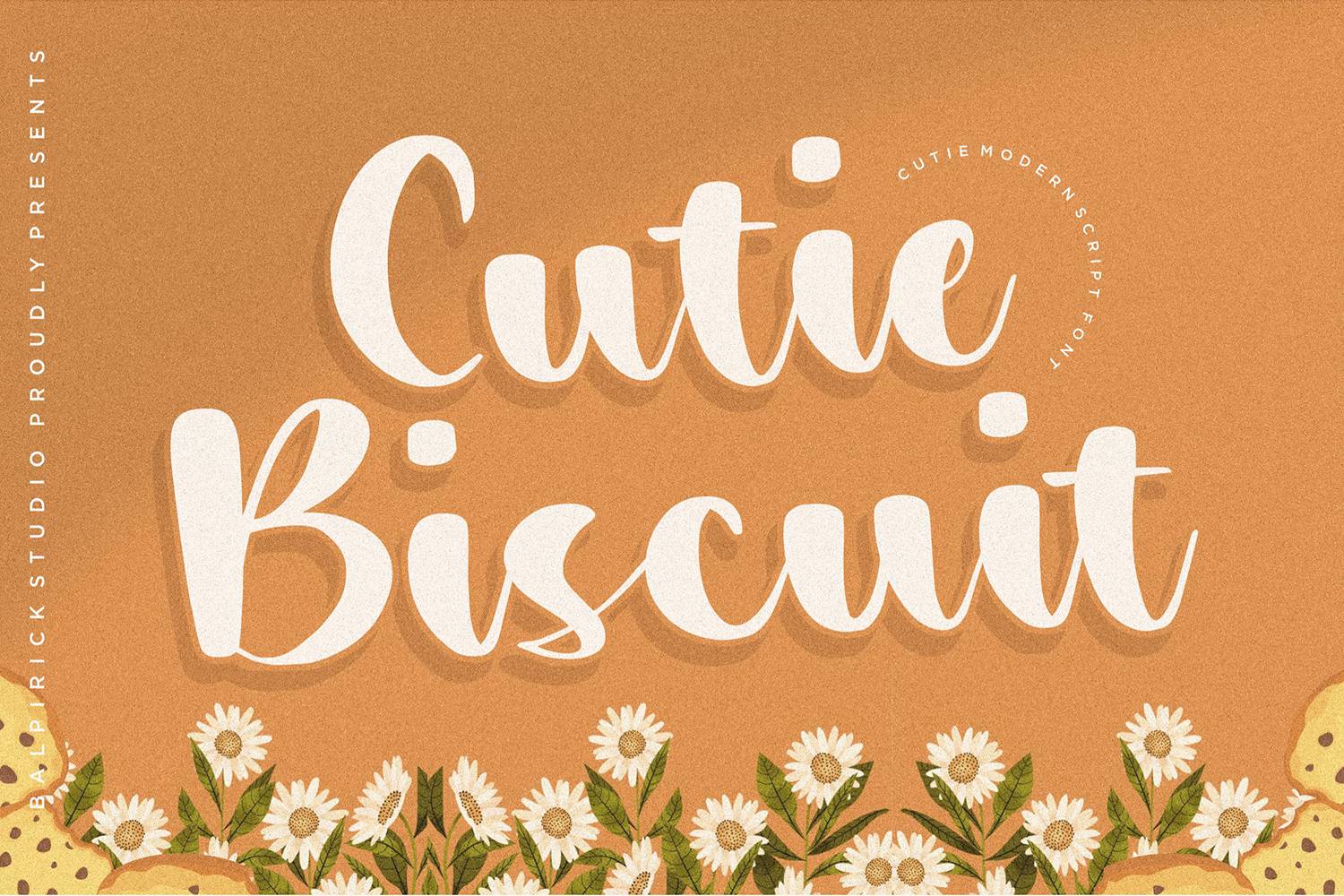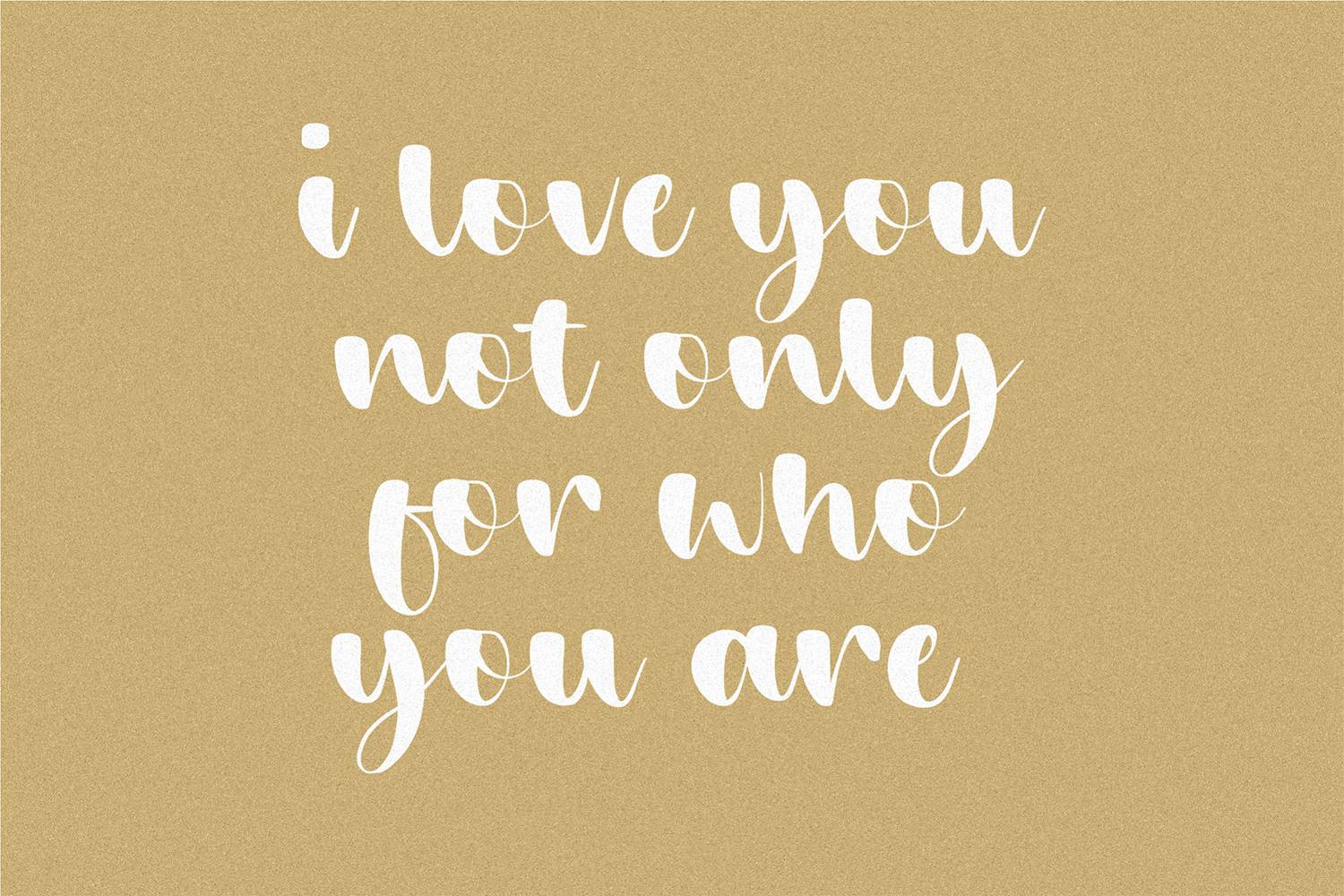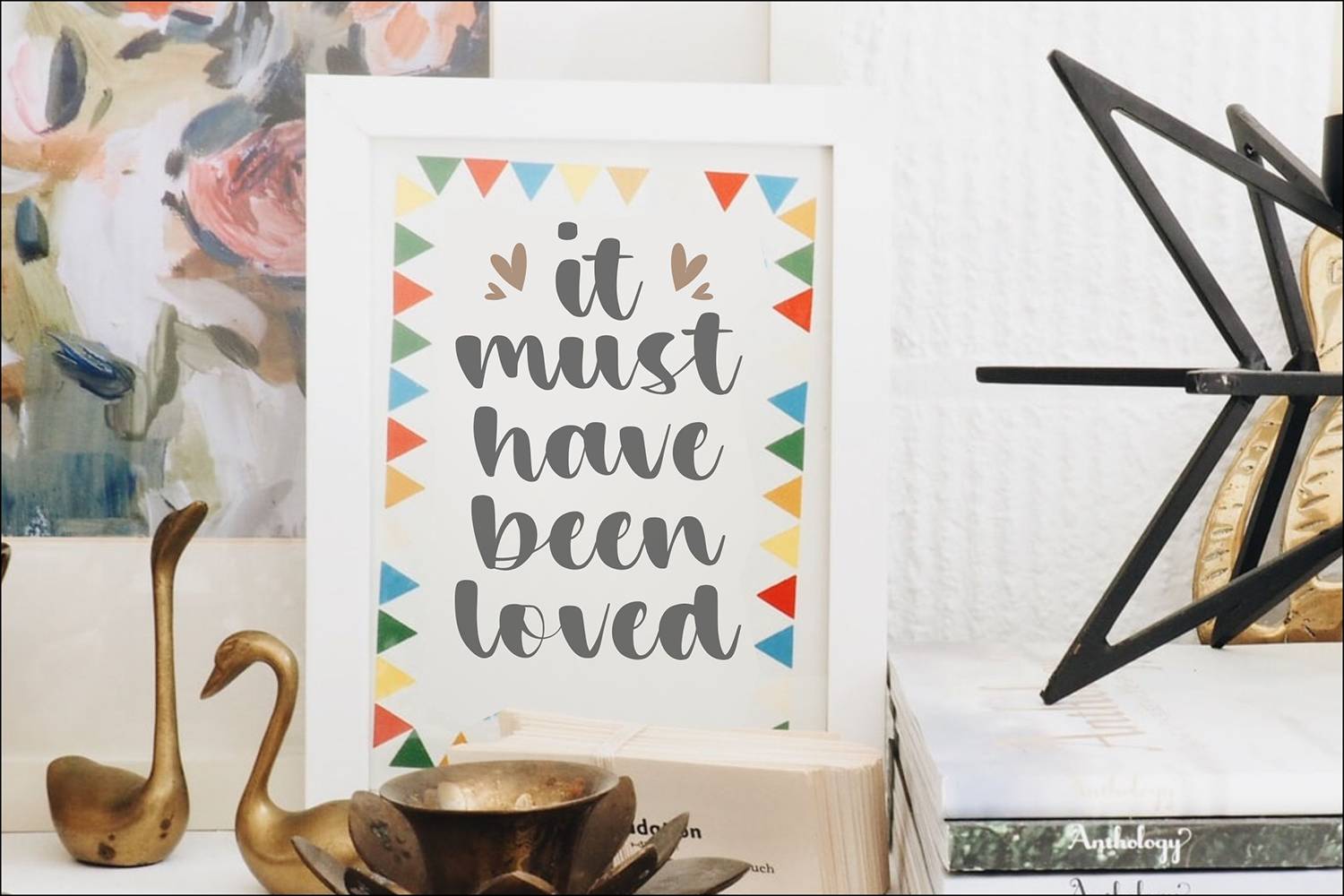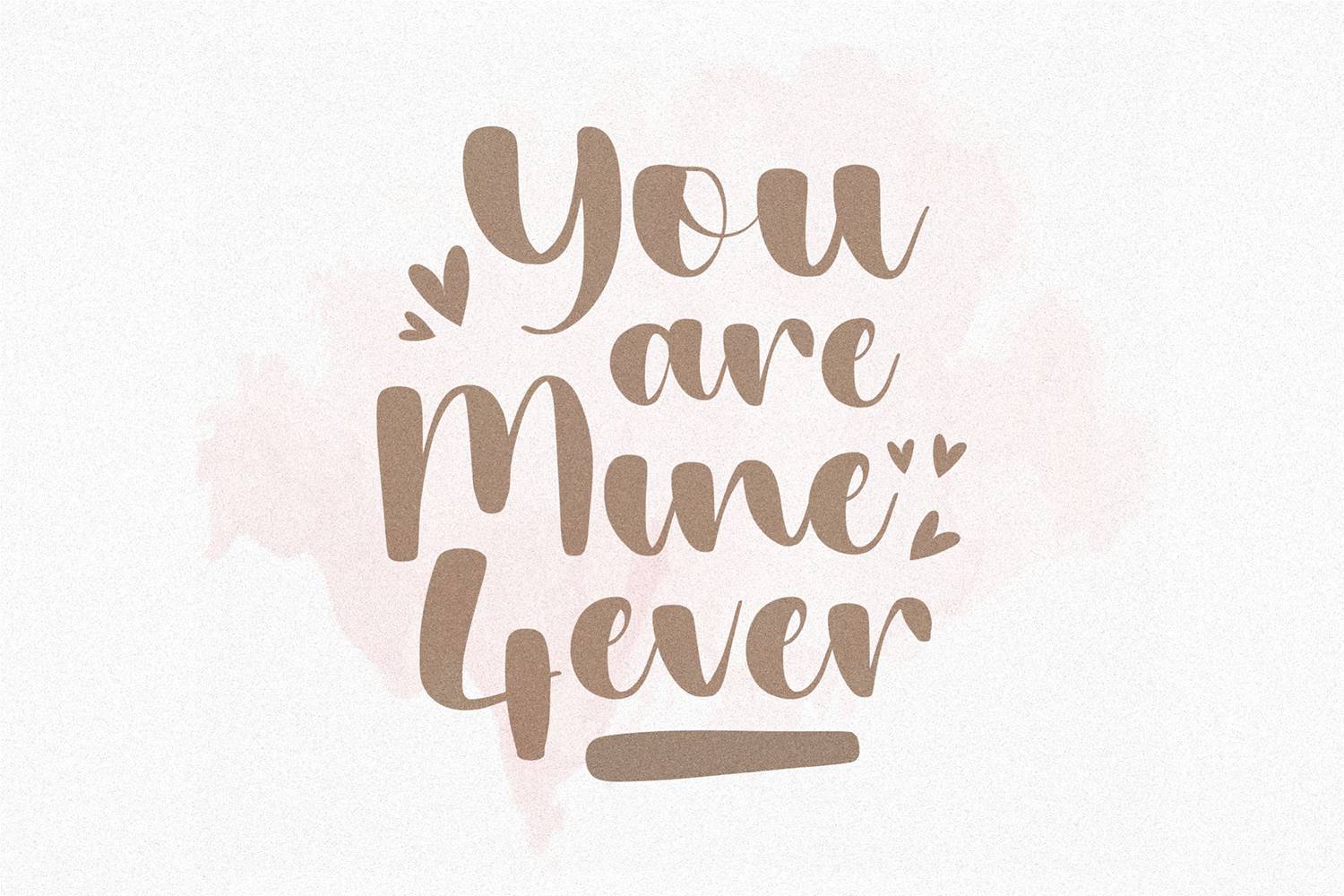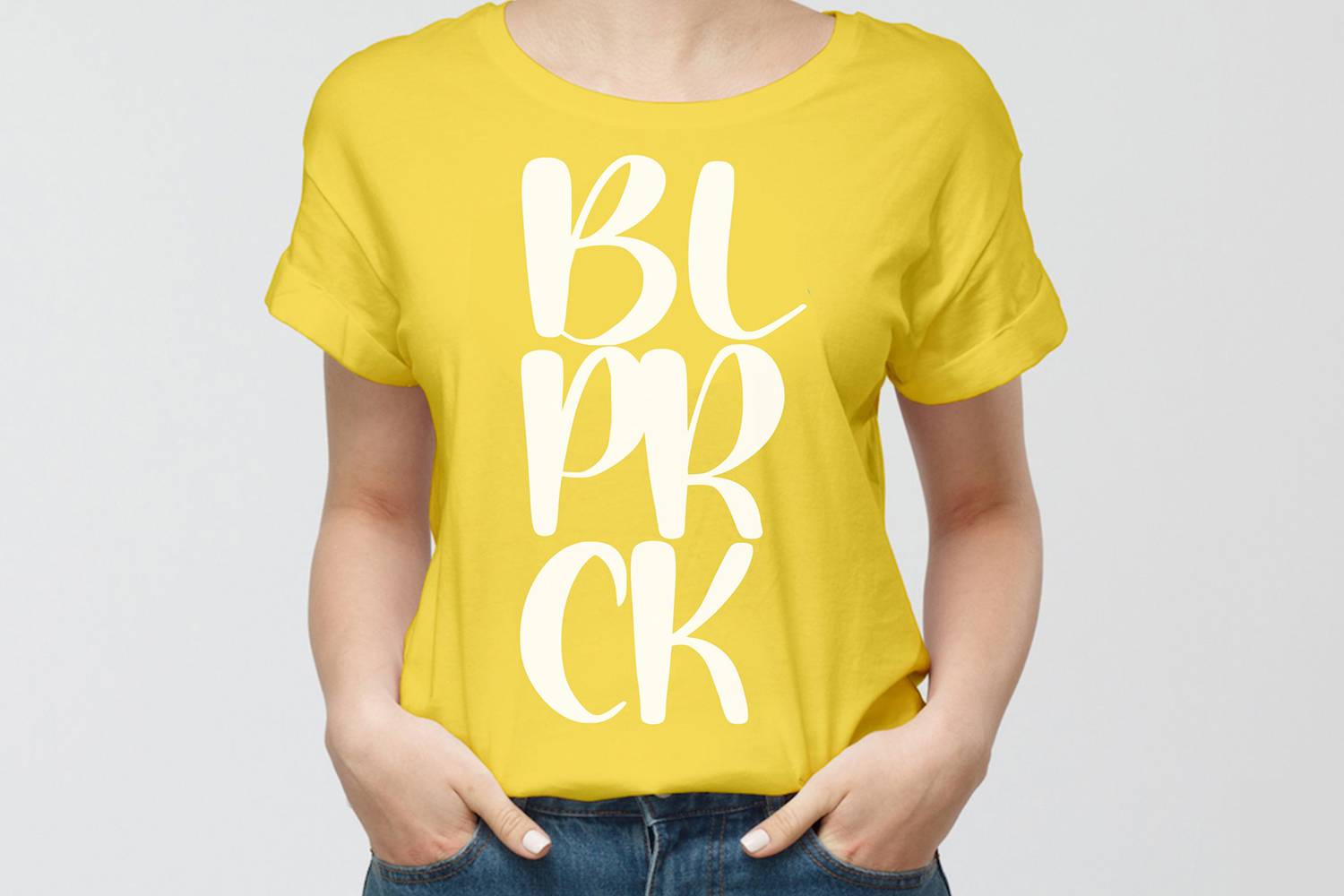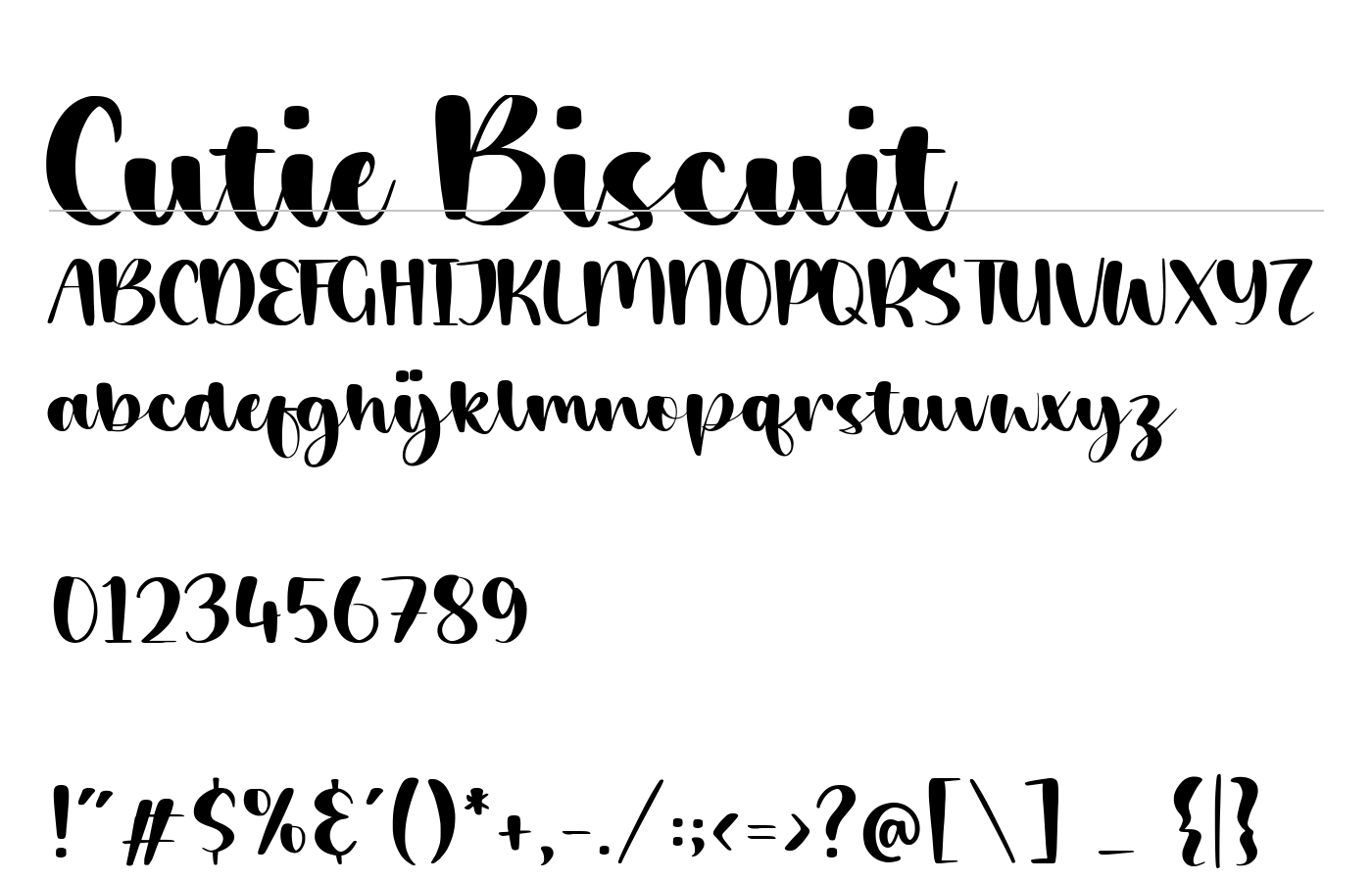
Cutie Biscuit is a playful, brush-script font with a casual and friendly vibe, characterized by its smooth, semi-bold strokes and lively letterforms featuring whimsical curves and slight irregularities. Its moderate contrast and handwritten feel make it perfect for designs that want to convey warmth and creativity, such as invitations, branding for children’s products, and fun, informal headlines. This font works well where a personalized, approachable style is desired, adding charm and character without sacrificing readability.
Cutie Biscuit Font
About Cutie Biscuit Font